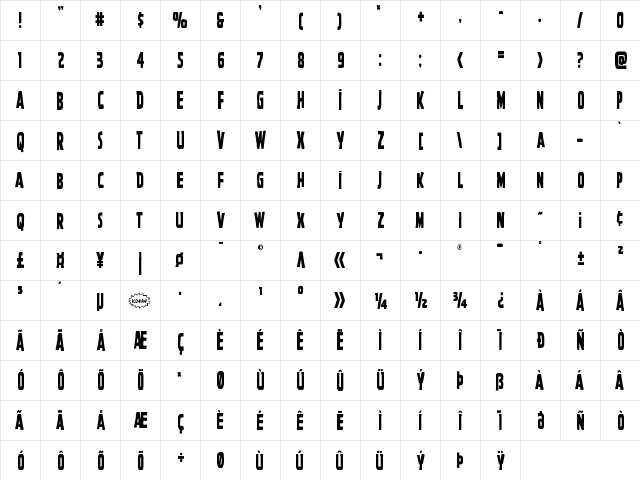
Ghoulish Intent Condensed Condensed
Design Context for Ghoulish Intent Condensed Typeface
Ghoulish Intent Condensed offers clean, dependable letterforms without strong stylistic allegiance, making it a practical choice for designers who need flexibility. The condensed width makes it efficient for tight spaces without sacrificing legibility.